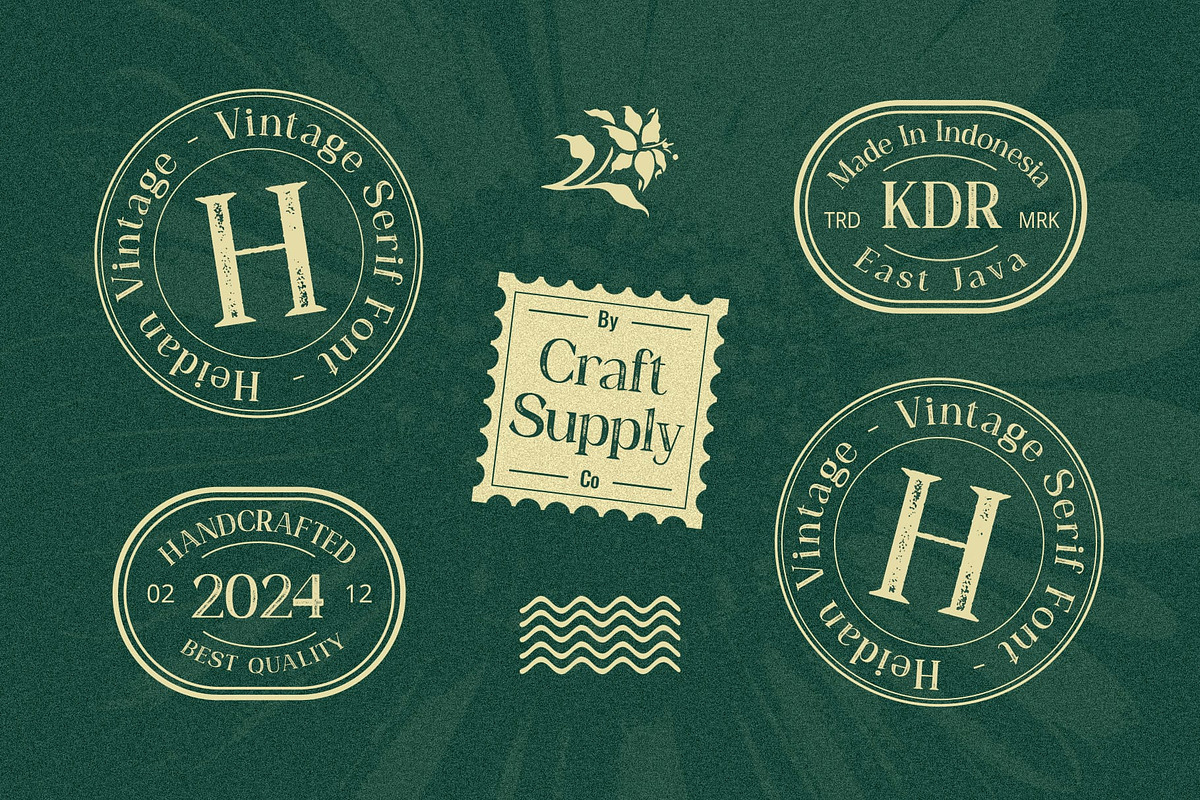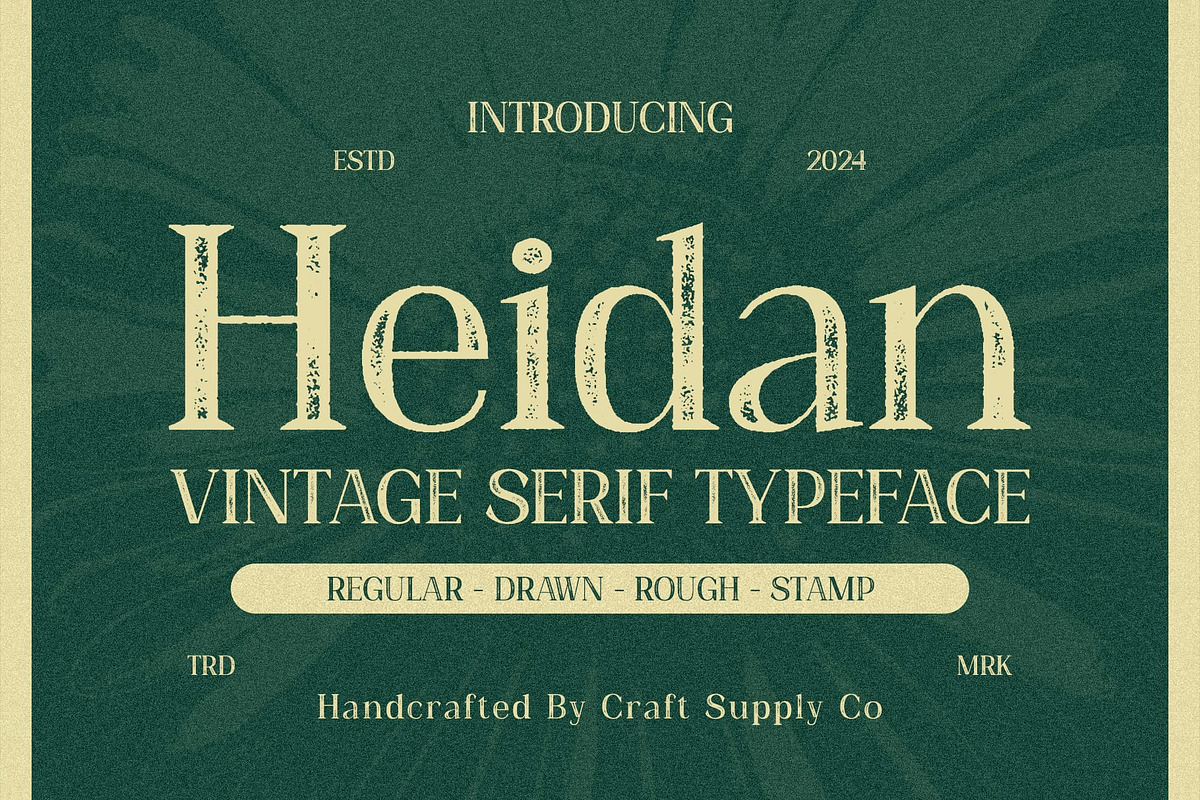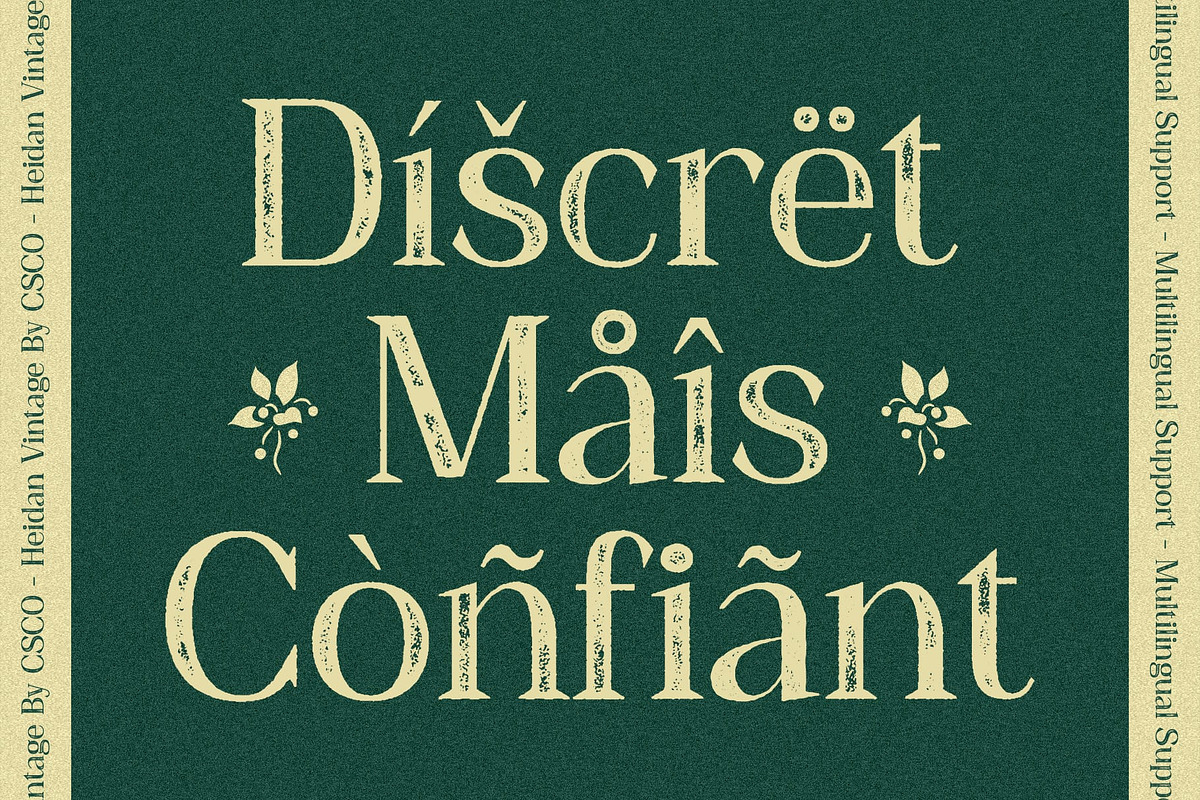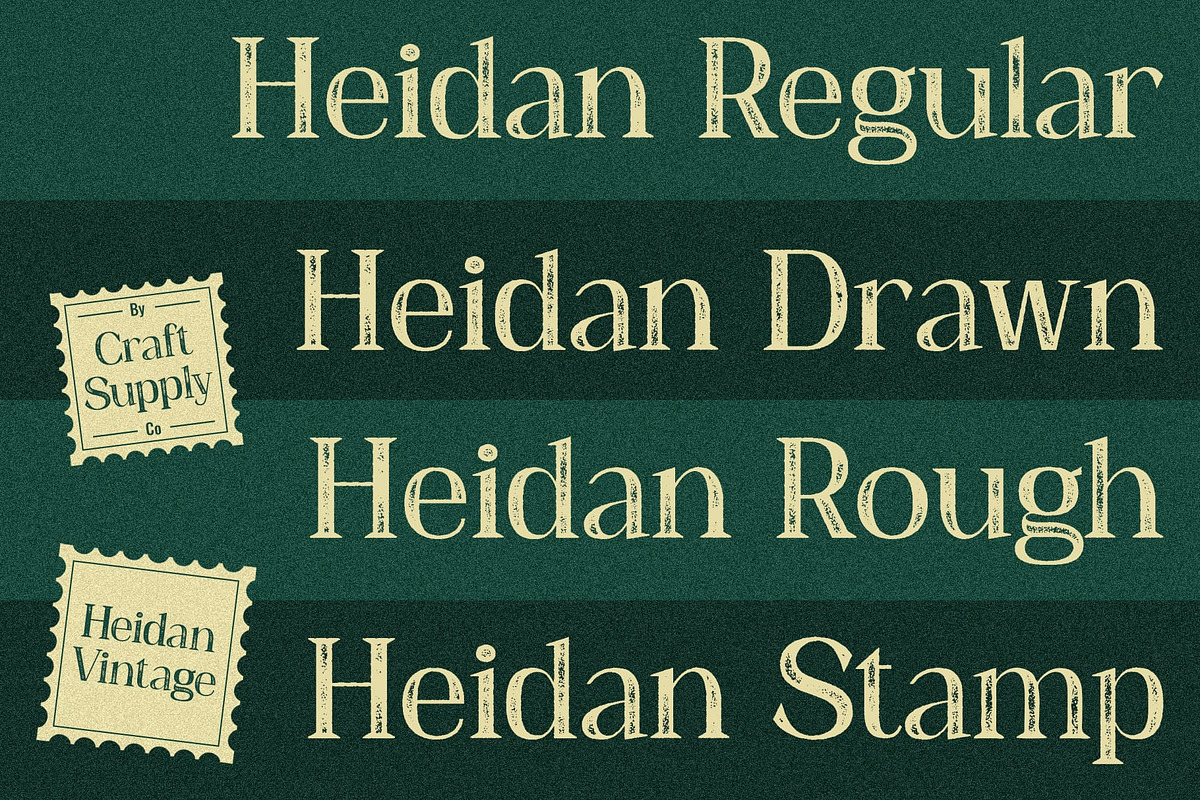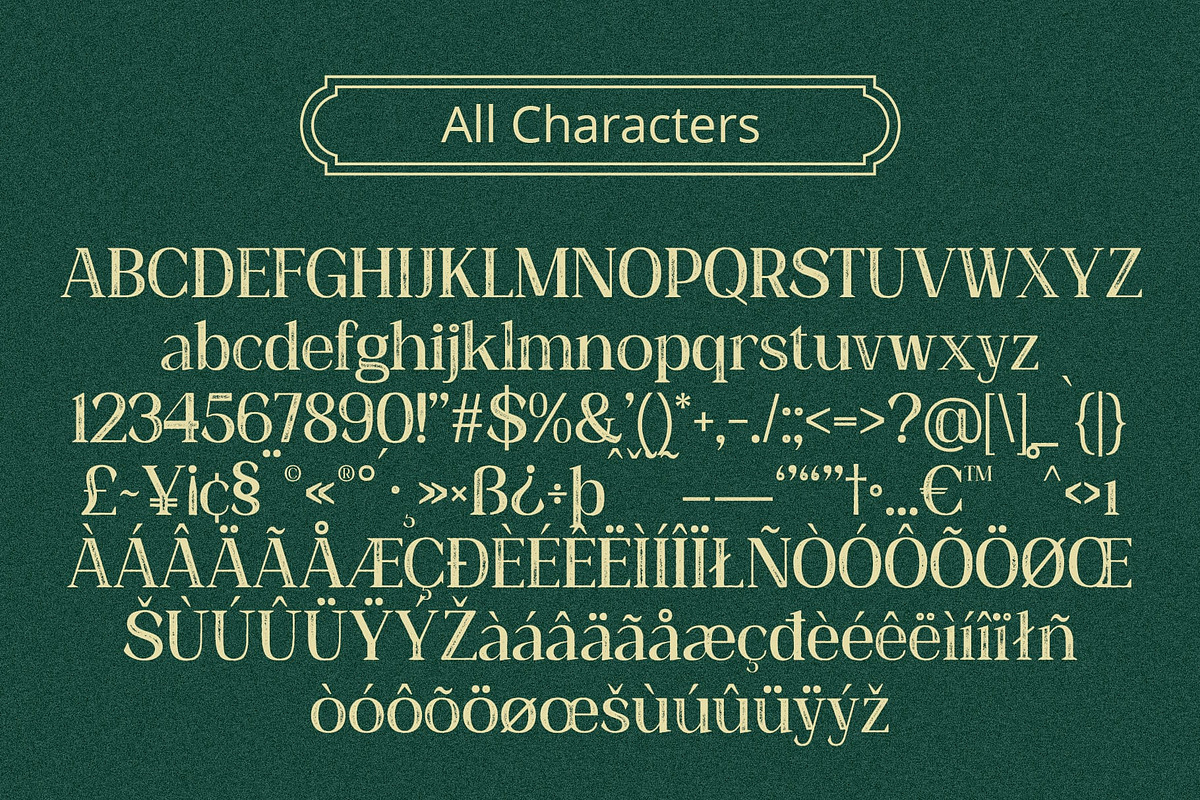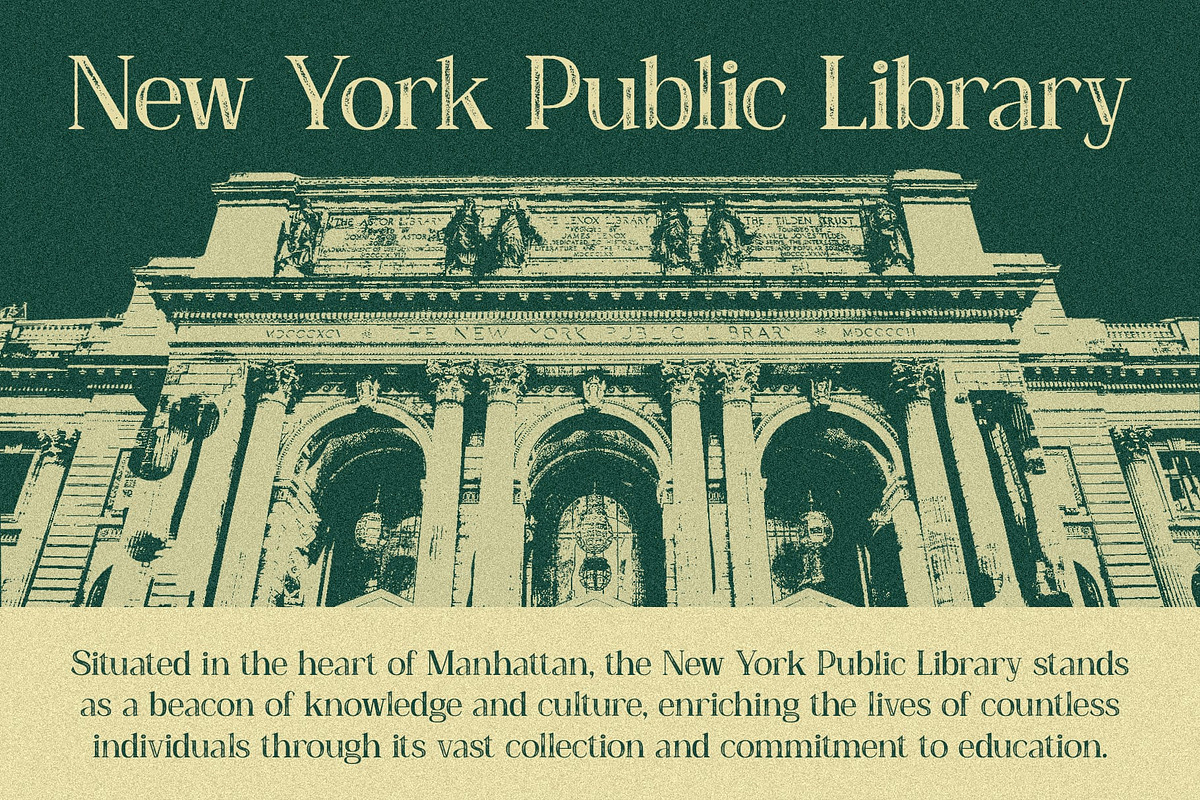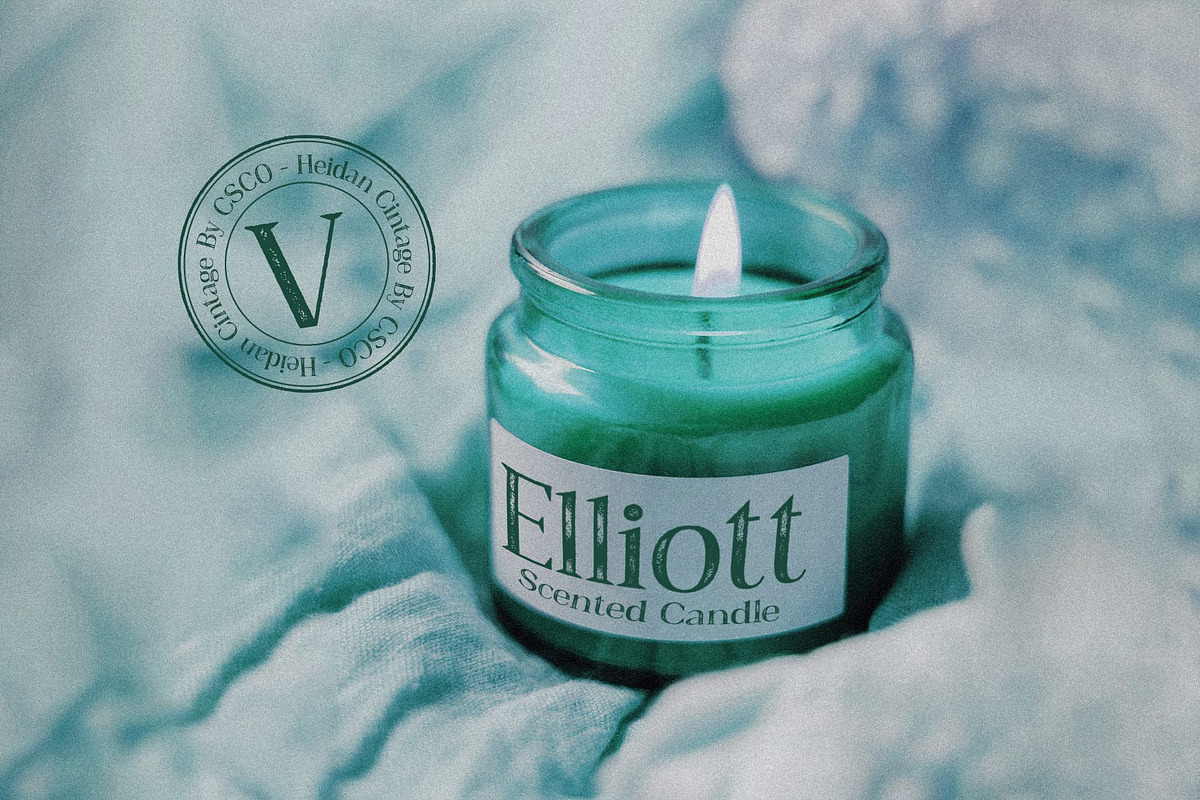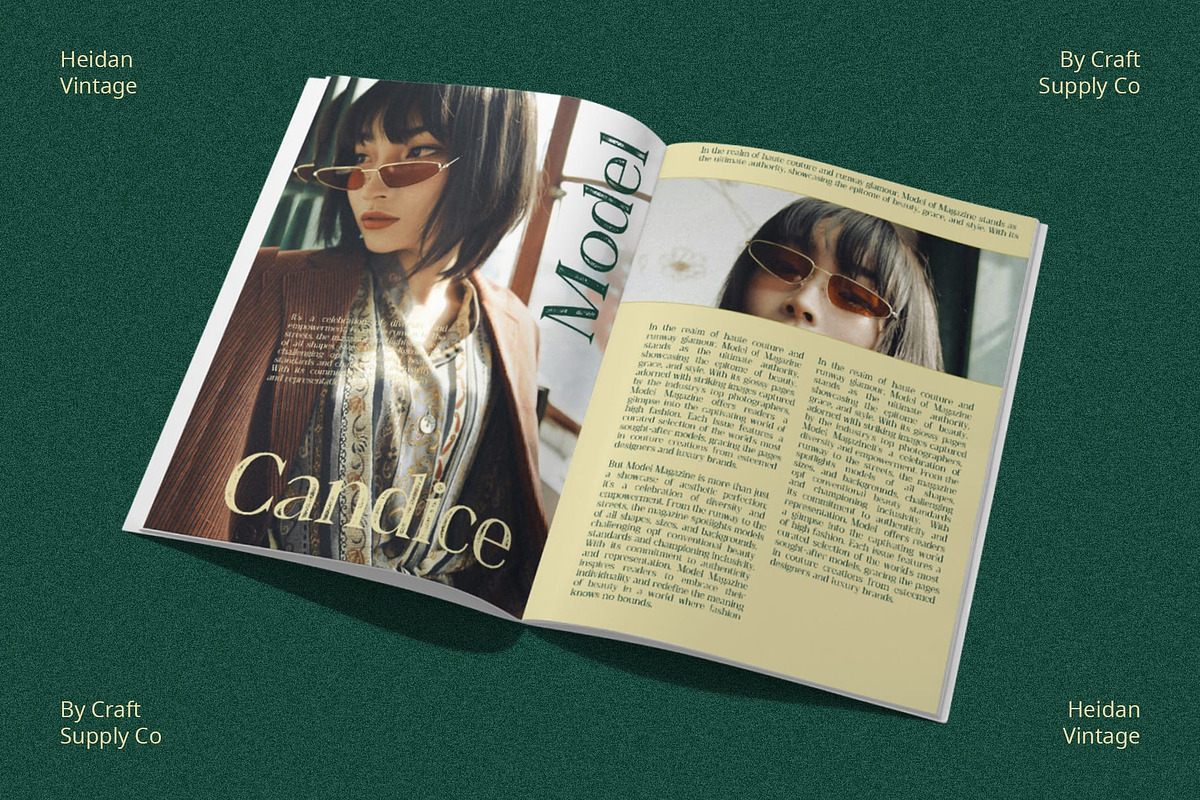
Heidan Vintage
Heidan Vintage: A Nostalgic Display Typeface
Serif Elegance with High Contrast Heidan Vintage features striking high-contrast serifs that exude elegance and sophistication. Its bold strokes and delicate details add a touch of refinement to any design project.
Vintage Vibes with Stamp Rough Effects Inspired by vintage aesthetics, This font incorporates rough stamp effects, giving it a nostalgic charm reminiscent of old-fashioned letterpress printing. Each character carries the allure of bygone eras.
Perfect for Display Purposes Tailored for display use, This font shines in various applications, from posters and packaging to branding and editorial design. Its distinctive appearance grabs attention and makes a lasting impression.
Versatile and Timeless Appeal Beyond its vintage-inspired look, This font offers versatility and timeless appeal. Whether used for retro-themed projects or contemporary designs seeking a touch of nostalgia, it delivers impactful results.
Timeless Elegance This font stands as a testament to timeless elegance and vintage charm. With its high-contrast serifs and stamp rough effects, it adds a touch of nostalgia and sophistication to any display project, ensuring it stands out with captivating allure.
- Heidan Regular
- Heidan Drawn
- Heidan Rough
- Heidan Stamp